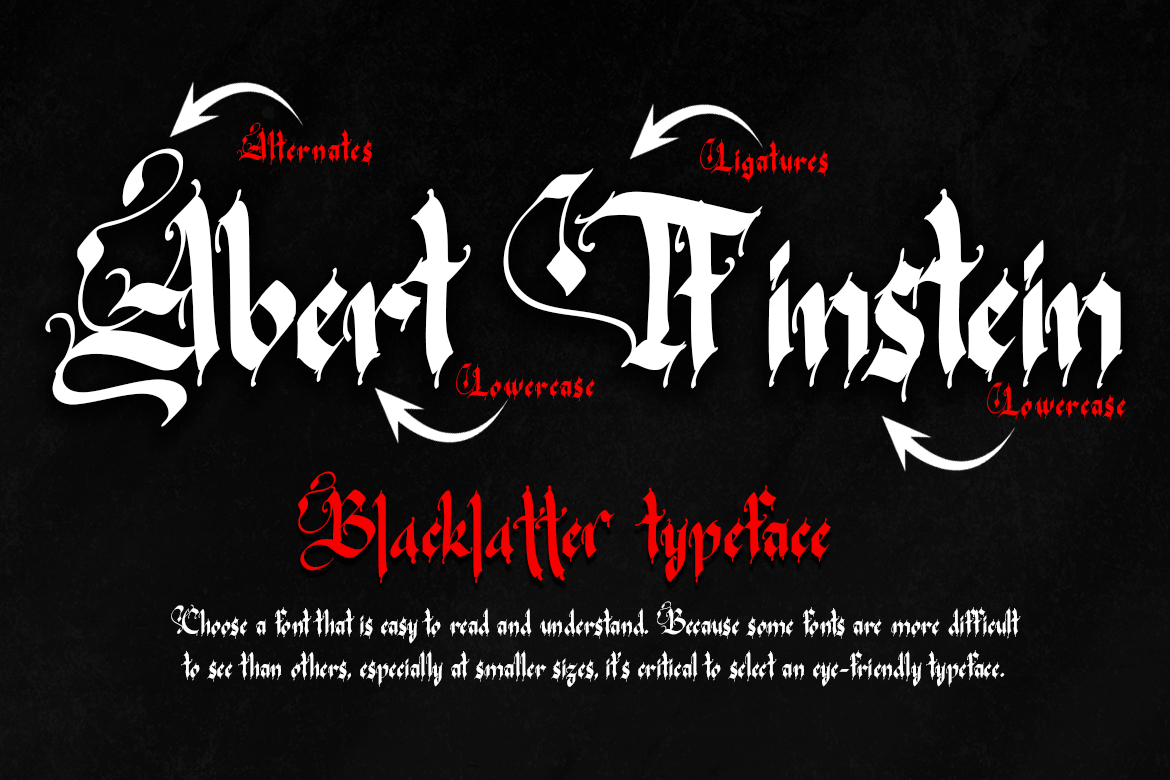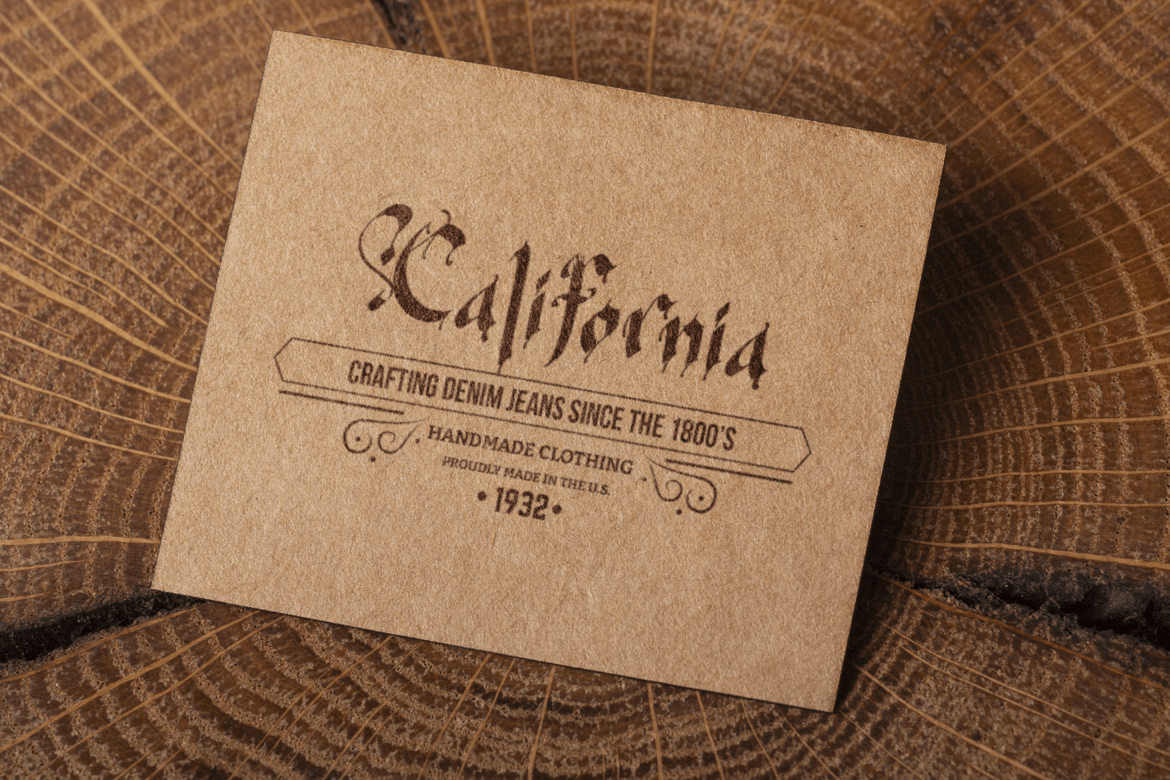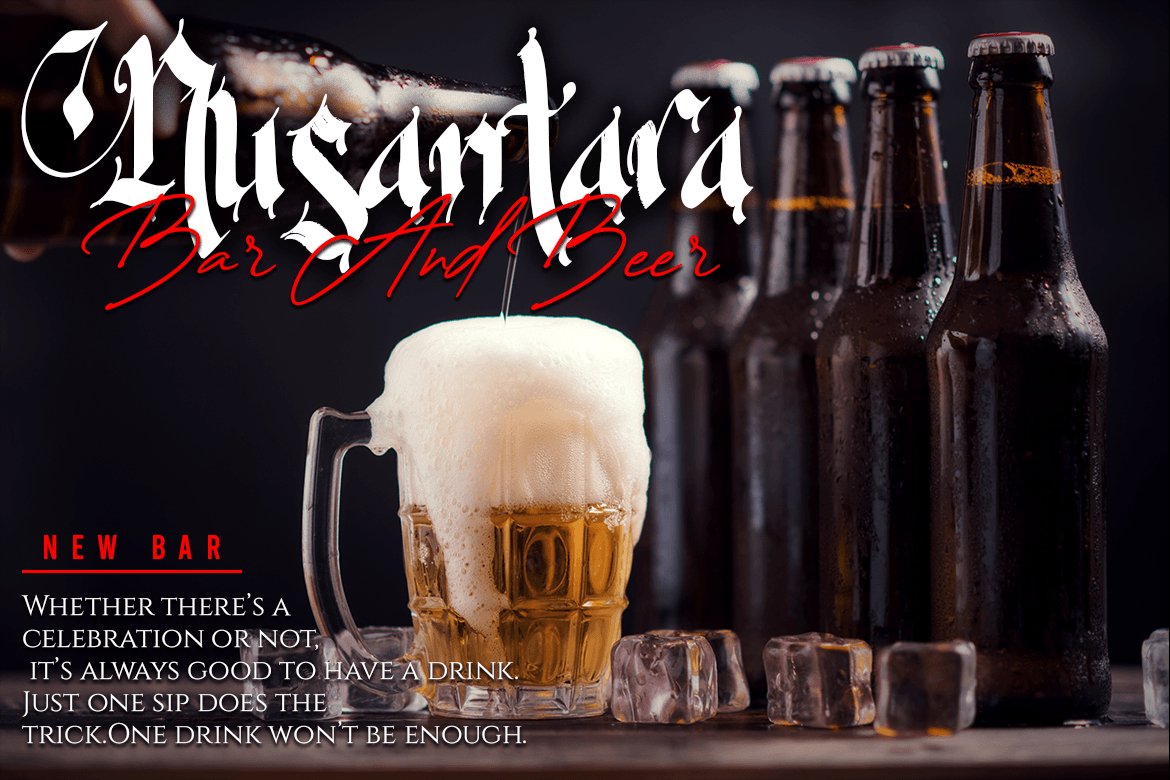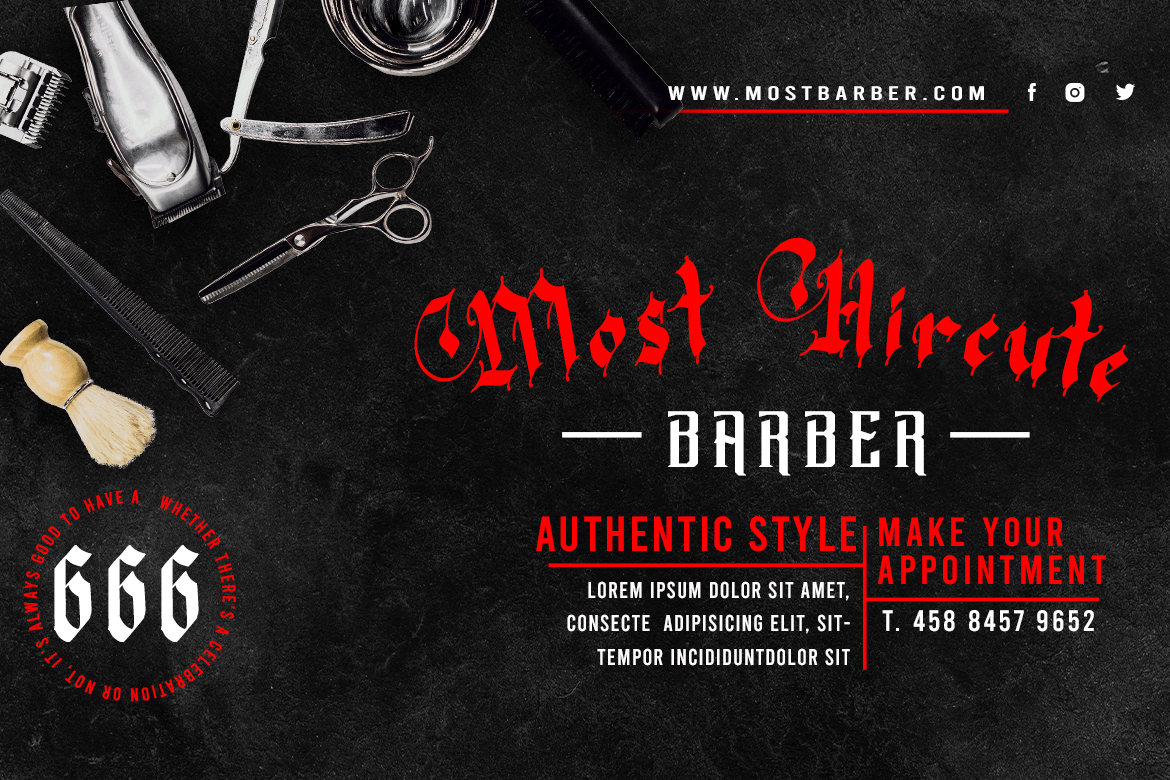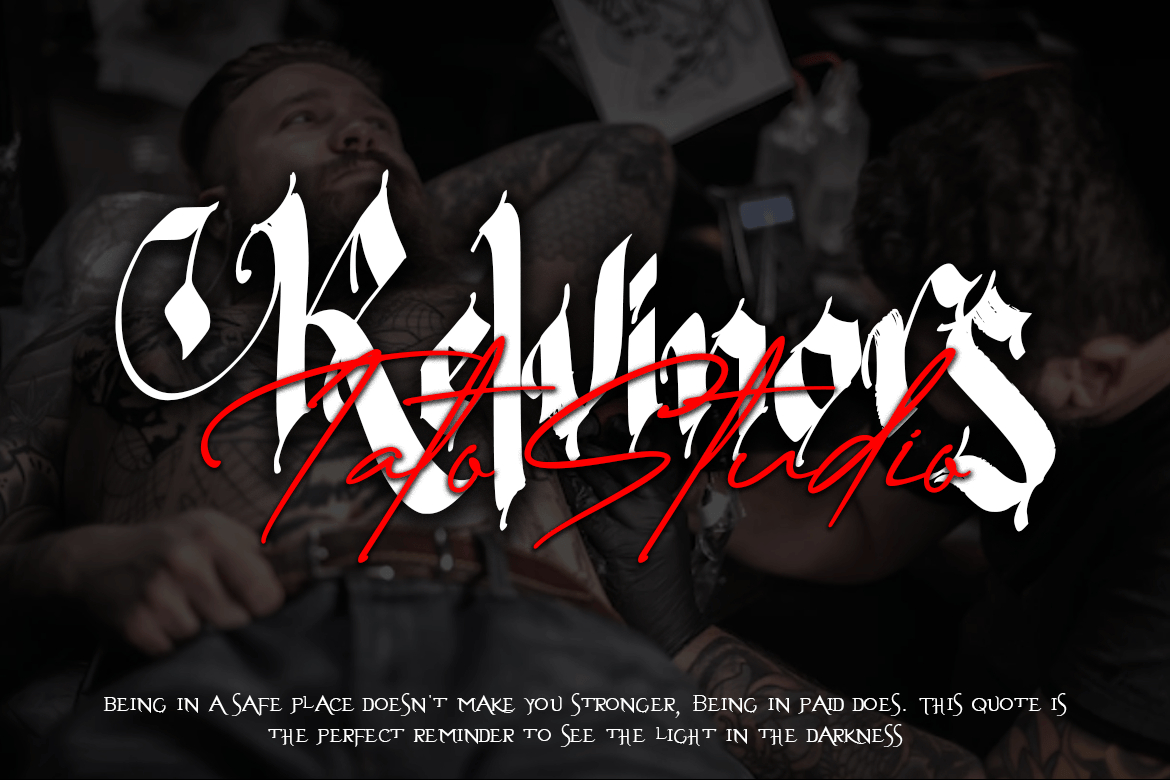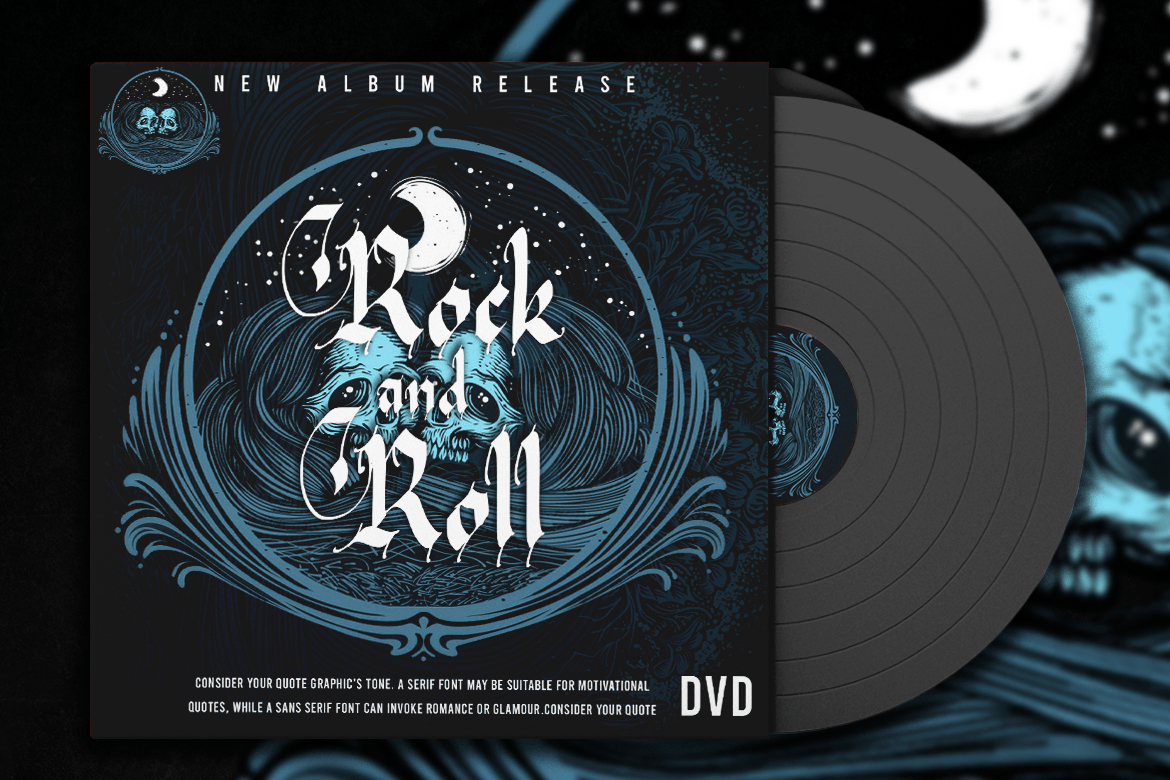
About Mystical Font
Mystical is an elegant and classic blackletter font that will impress with its stylish features. Use it for product packaging, branding, or other projects that need bold and daring typography!